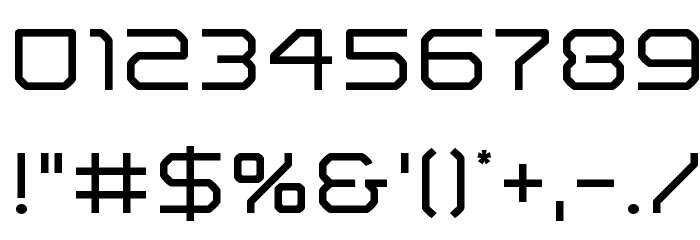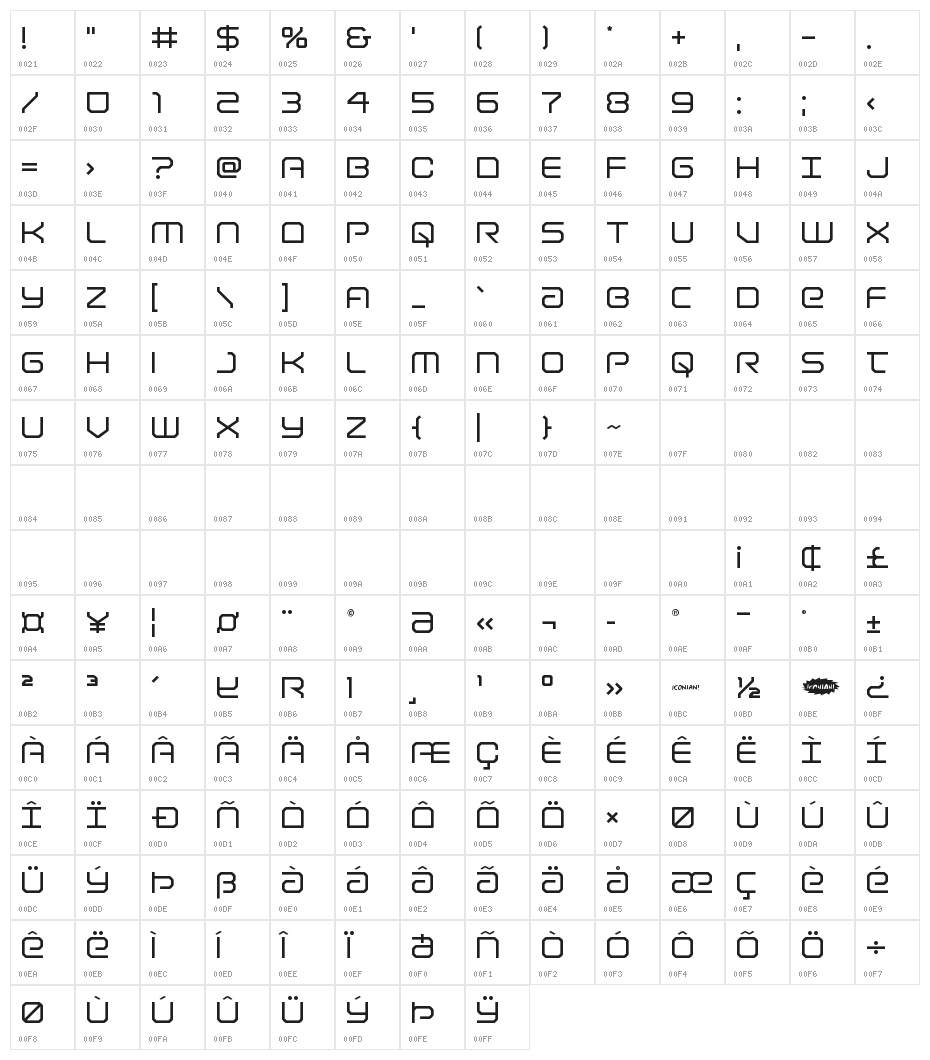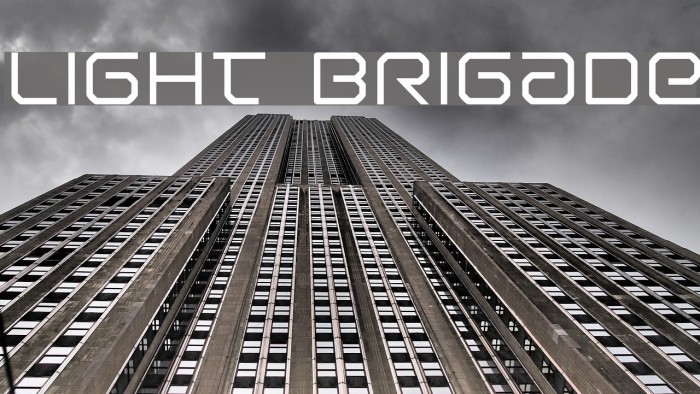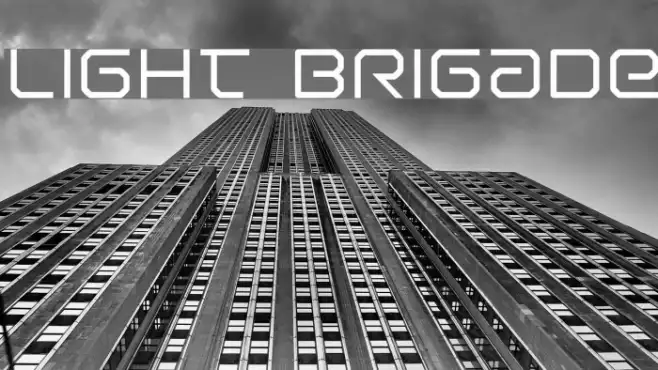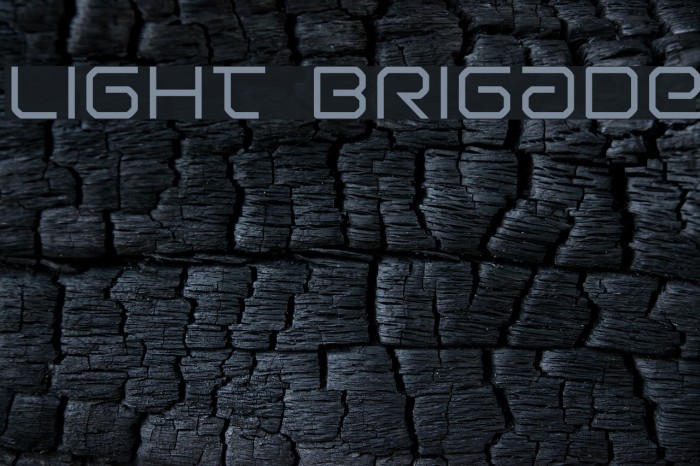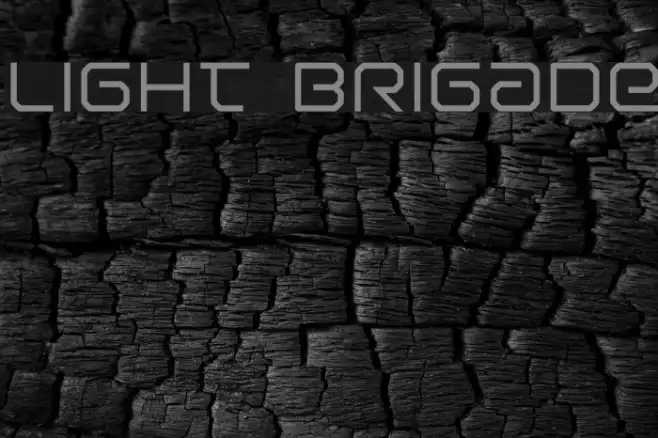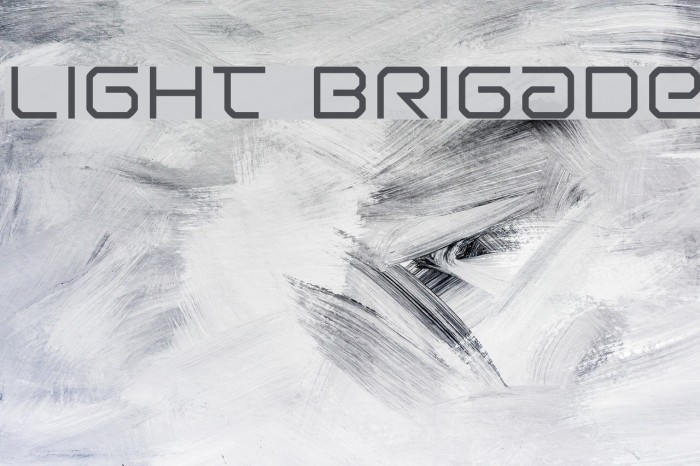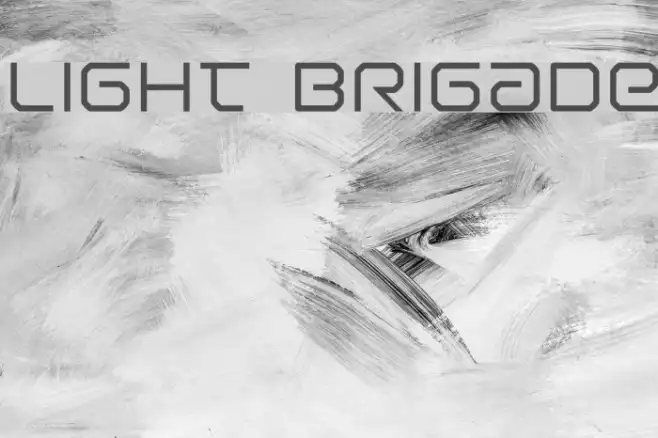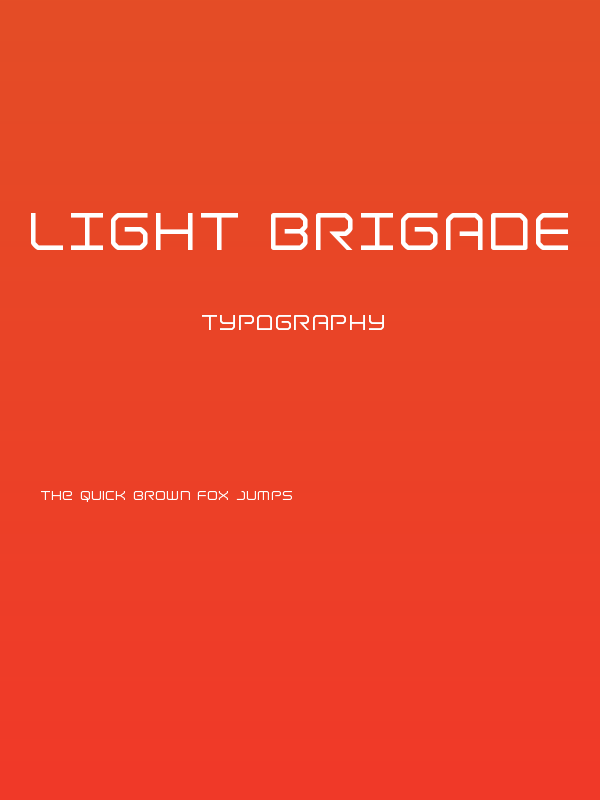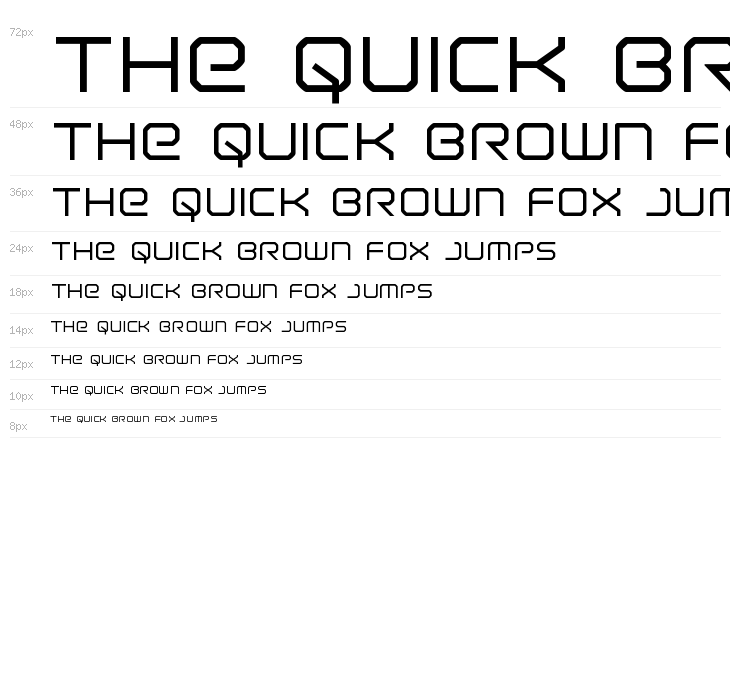
Light Brigade Font
Light Brigade Description
This font features a modern, geometric design with a distinct, futuristic appeal. The characters are constructed with clean, angular lines and uniform stroke widths, giving it a sleek and technical appearance. The uppercase and lowercase letters maintain a consistent style, with rounded edges that soften the overall look. The numerals and special characters follow the same design principles, ensuring a cohesive visual identity. This font's unique structure makes it stand out, while its readability remains intact, making it suitable for various applications.
| Overall Style | Futuristic, Technical |
| Use Case | Logos, Headlines, Digital Interfaces |
| Proposed Projects | Ideal for technology branding, sci-fi themed projects, digital interfaces, and modern advertising. |